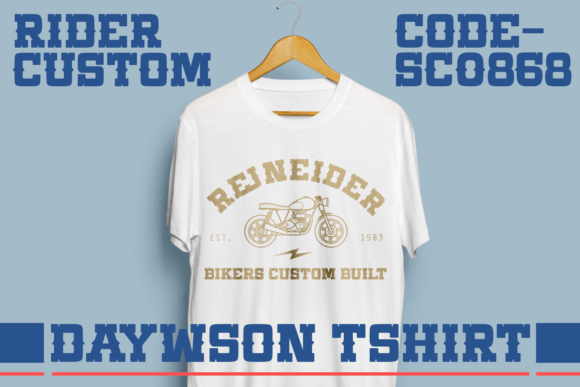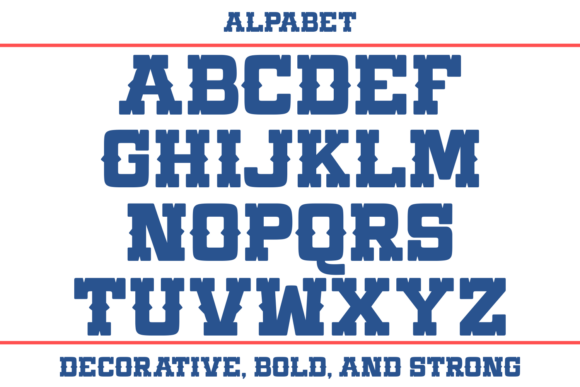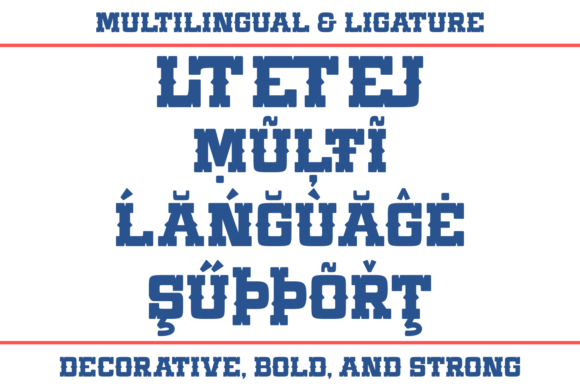
Introduction to Sheltown Font
Have you ever stared at a blank page, waiting for inspiration to strike? For many designers, the perfect font can be the spark that sets a creative project ablaze. And that’s exactly what the Sheltown Font offers – a bold, condensed, and slab-serif typeface that’s equal parts vintage and modern.
With its strong geometric shapes and clear-cut outlines, the Sheltown Font is a design resource that’s hard to ignore. Whether you’re working on a high-quality brochure, a website, or a social media campaign, this font is sure to make your project stand out. And the best part? It’s available for free download, making it a valuable asset for designers on a budget.
With its transparent background and bold color scheme – featuring dominantly blue and white tones with red accent lines for contrast – the Sheltown Font is a design dream come true. So why not give it a try and see how it can elevate your next creative project?
Key Features of Sheltown Font
- High-quality design resource ideal for creative projects requiring a unique touch
- Includes transparent background options for seamless integration into various design elements
- Features a high-resolution design, perfect for print and digital applications
- Perfect for designers and artists looking for a unique, high-quality font to enhance their creative project
Honest Review: Sheltown Font
As a designer, I’m always on the lookout for high-quality design resources that can elevate my creative projects. Recently, I stumbled upon the Sheltown Font, and I must say it’s a great find. With a transparent background, it’s perfect for adding a touch of sophistication to any design.
The Sheltown Font is a free download, which is a definite plus. It’s always exciting to discover new fonts that won’t break the bank. Upon closer inspection, I noticed that the font is well-crafted, with clean lines and a modern aesthetic. It’s a great addition to any design library.
Here are some of the features that work well for me:
- ✨ Unique design style that sets it apart from other fonts
- ✨ Great for both digital and print designs
- ✨ Highly versatile, can be used for a wide range of creative projects
- ⚠️ Limited character set, may not be suitable for complex texts
- ⚠️ May not be as readable on small screens or in certain contexts
Overall, I’m impressed with the Sheltown Font. It’s a great design resource that can add a touch of elegance to any project. While it may have some limitations, it’s a valuable addition to any designer’s toolkit.
Tips for Getting the Most Out of Sheltown Font
Use the Sheltown Font on a transparent background to create a visually appealing design. Experiment with different font sizes and styles to add depth to your project. Make the most of this high-quality font by combining it with other design elements.
The Sheltown Font is ideal for a variety of creative projects, including graphic design, branding, and digital art. Its versatility makes it a valuable design resource for designers and artists alike.